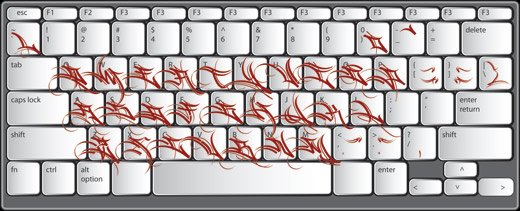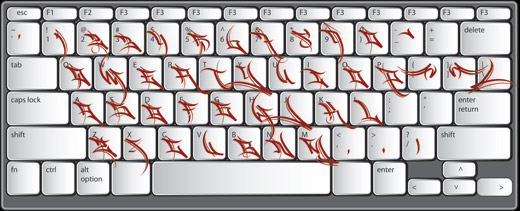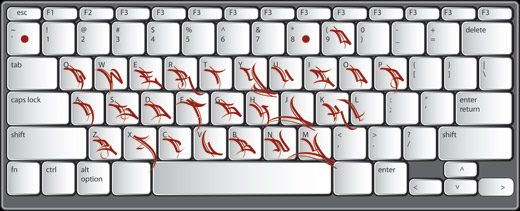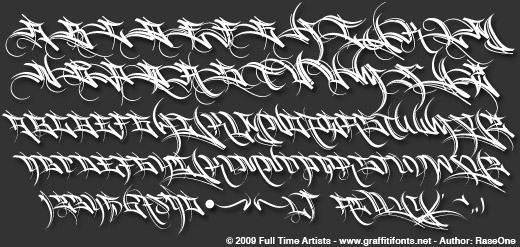
Hardway gangster script font title image
HardWay™
EXCLUSIVE! - All new Graffiti Font™
This calligraphic style draws inspiration from chicano & american gangland handstyles embelished with long strokes. This clean style is best used for logos, emblems & heavily stylized designs.
Harway Graffiti Typeface sample alphabet
Hardway uppercase letters
Hardway font lowercase letters & numbers
Harway Hidden characters
The HardWay™ font family includes 4 styles:
HardWay Regular
HardWay Caps (embelished caps)
HardWay Flat
Hardway Basic
Each style is made up of different letters at different thicknesses. Each font/style contains 2-3 full alphabets, numbers & symbols.